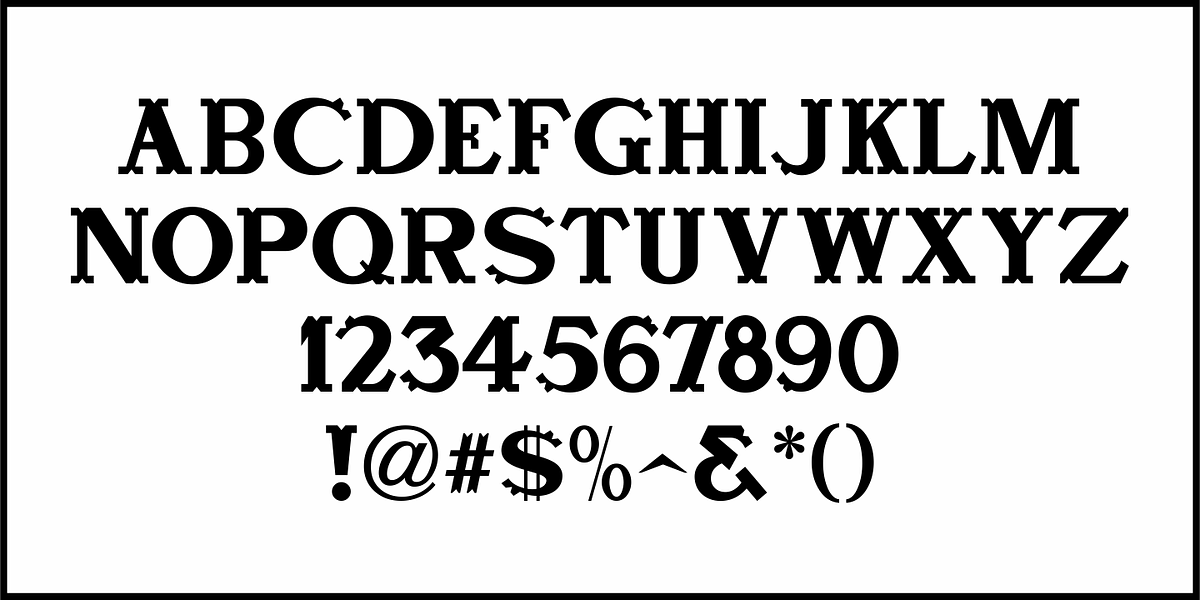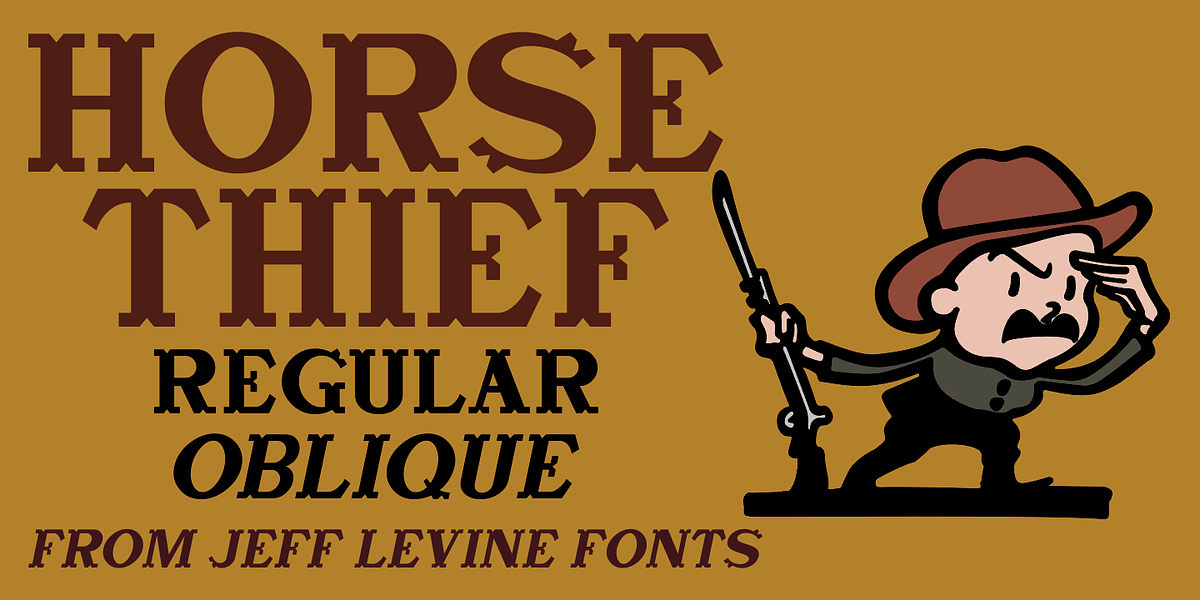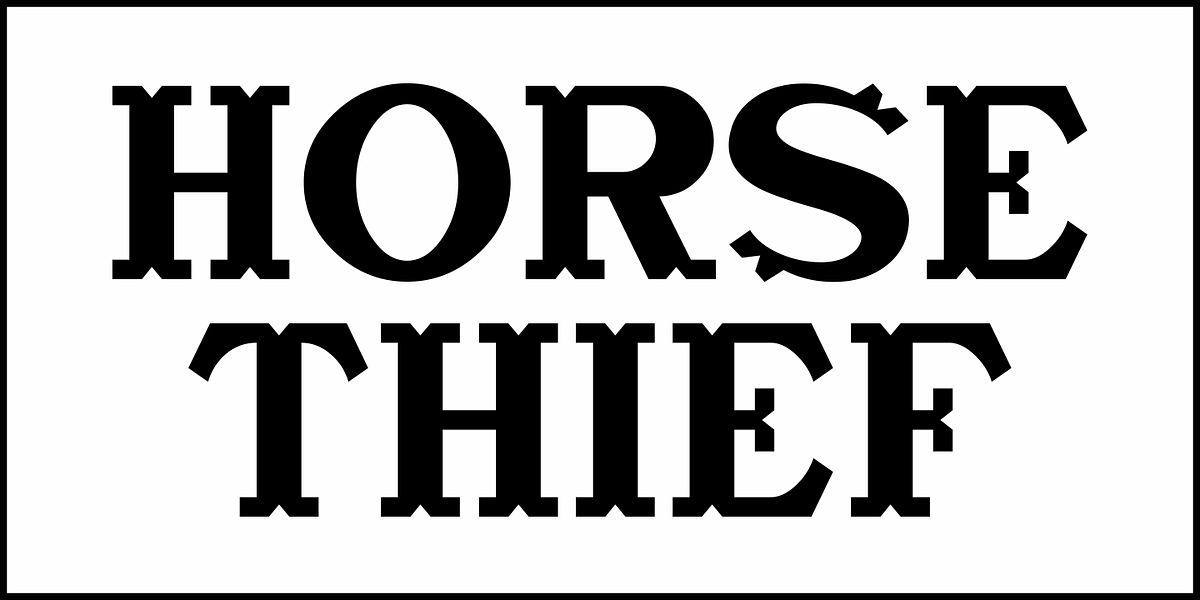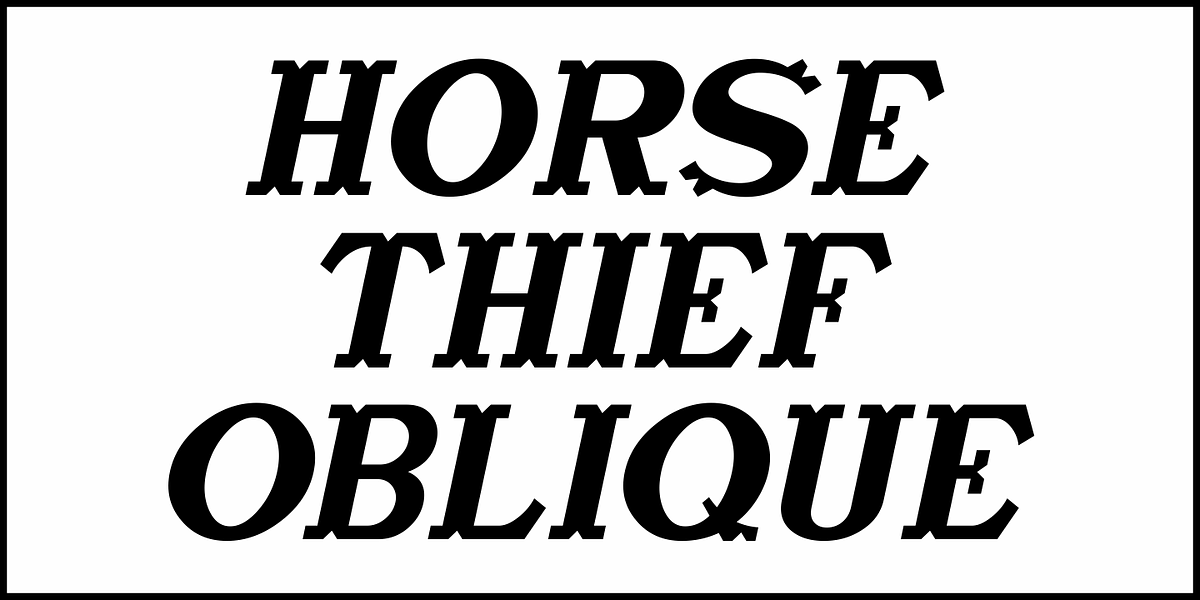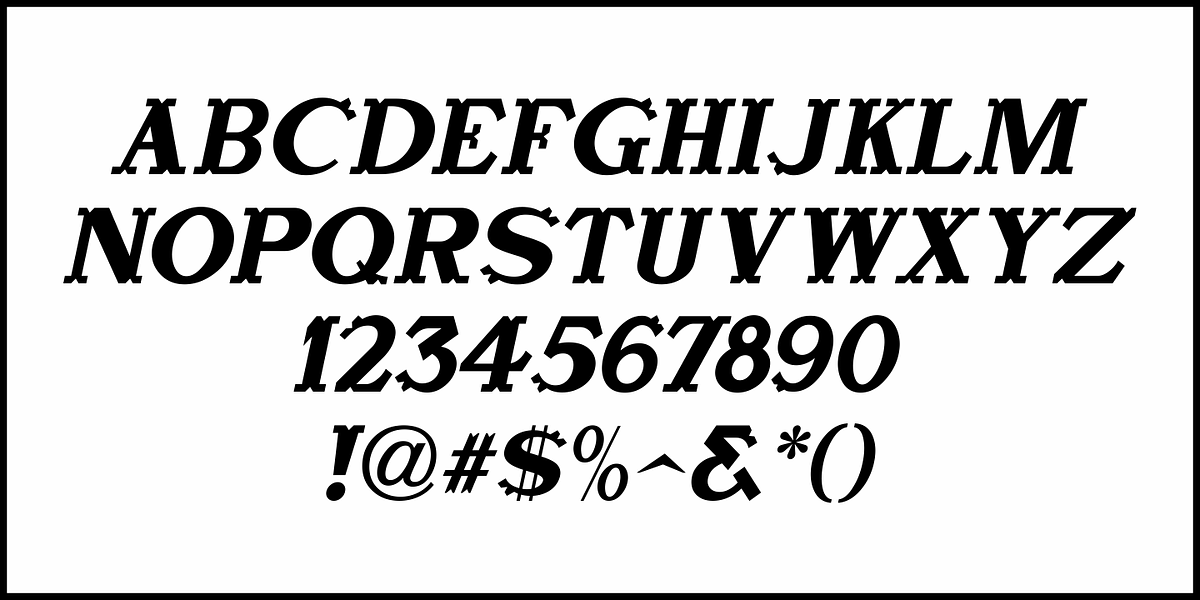
Horse Thief JNL
The 1957 French publication “La Letra Dans La Peinture et la Publicite” (“The Letter tn the Painting and Advertising”) had an illustration of split-serif letters and numbers with a decidedly Western feel.
This is now available as Horse Thief JNL in both regular and oblique versions.